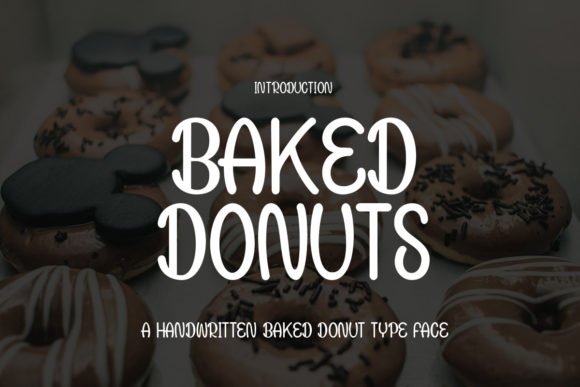
The Perfect Pastry for Your Design Projects
Have you ever been stuck in a creative rut, searching for the perfect font to elevate your design? You know, that moment when you’re scrolling through font libraries, and nothing seems to be just right. That’s when I stumbled upon the Baked Donuts Font – and it’s been a game-changer ever since.
Baked Donuts Font is a wavy and casual handwritten font that’s perfect for adding a touch of warmth and personality to any project. Whether you’re designing a blog post, a social media campaign, or a marketing brochure, this font has the potential to take your creations to the next level.
What I love about Baked Donuts Font is its versatility – it’s the perfect addition to any designer’s library, and its value lies in its ability to enhance any topic or theme. So, if you’re looking to spice up your designs and add a dash of whimsy, look no further than the Baked Donuts Font.
Baked Donuts Font Key Features
- Unique Characteristics: The font features a playful, hand-drawn design with subtle texture and imperfections, giving it a warm and inviting feel.
- Customization Options: The font includes a variety of OpenType features, such as ligatures, swashes, and ornaments, allowing for creative customization and styling.
Baked Donuts Font Review
I recently had the chance to work with the Baked Donuts Font, and I’m excited to share my honest review. Here’s what I think:
- Cute and playful vibe: The Baked Donuts Font is perfect for adding a touch of whimsy to your designs. It’s great for bakeries, cafes, or any brand that wants to convey a sense of fun and indulgence.
- Customizable: The font offers a range of customization options, including color and size adjustments, which makes it easy to integrate into your design workflow.
- Good for headlines: The font’s bold and playful nature makes it ideal for use in headlines and titles, where you want to grab the user’s attention.
- Limited character set: The Baked Donuts Font is a display font, which means it’s not suitable for large blocks of text. It’s best used for short phrases and headings.
The Baked Donuts Font is a fun and playful addition to any design project. While it has its limitations, it’s perfect for brands that want to convey a sense of fun and indulgence. With its customizable options and cute vibe, it’s a great choice for bakeries, cafes, and any brand that wants to add a touch of whimsy to their designs.
The Baked Donuts Font is ideal for:
- Cake and bakery designs
- Whimsical and playful designs